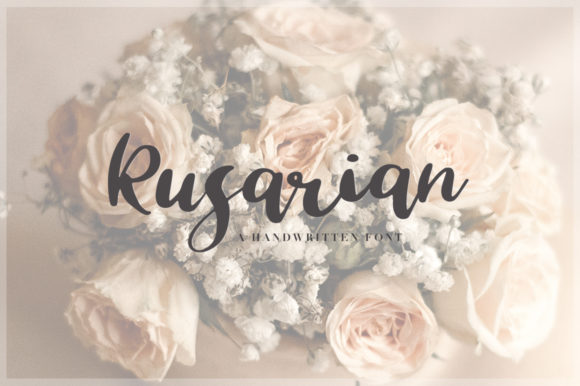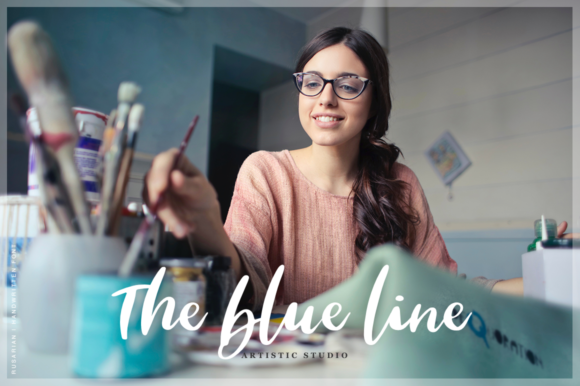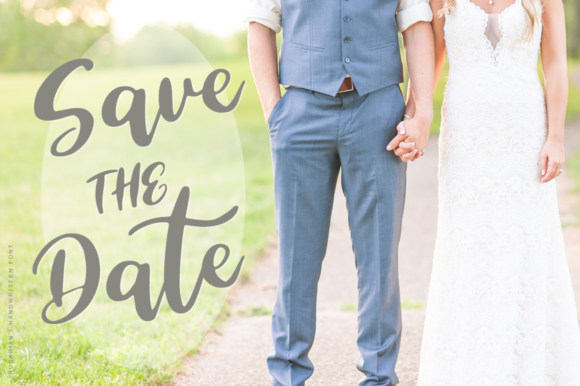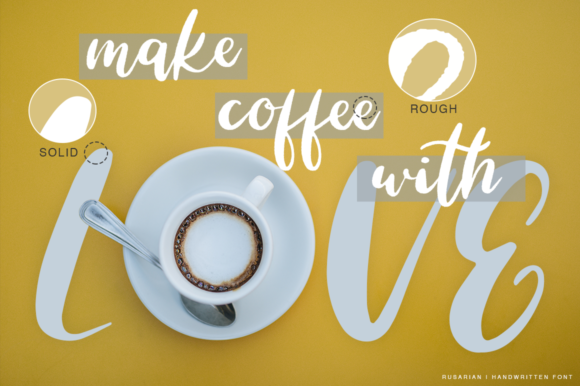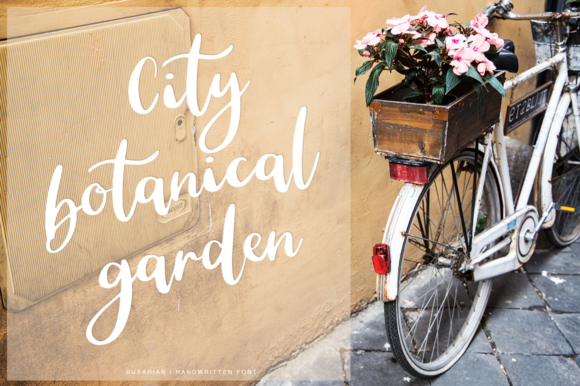
Rusarian Font
About Rusarian Font
The Rusarian font is a fresh, handmade calligraphy font.
It’s ideal for branding, decorating your projects, wedding invites and more.